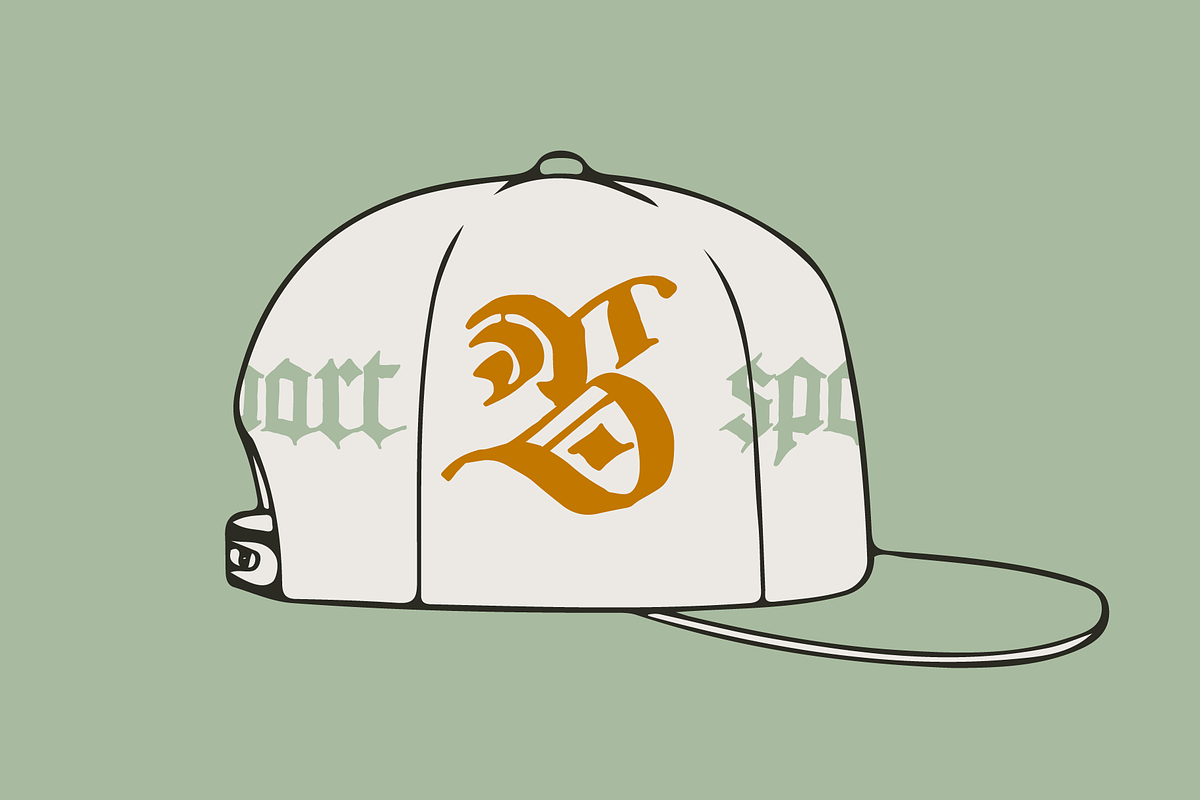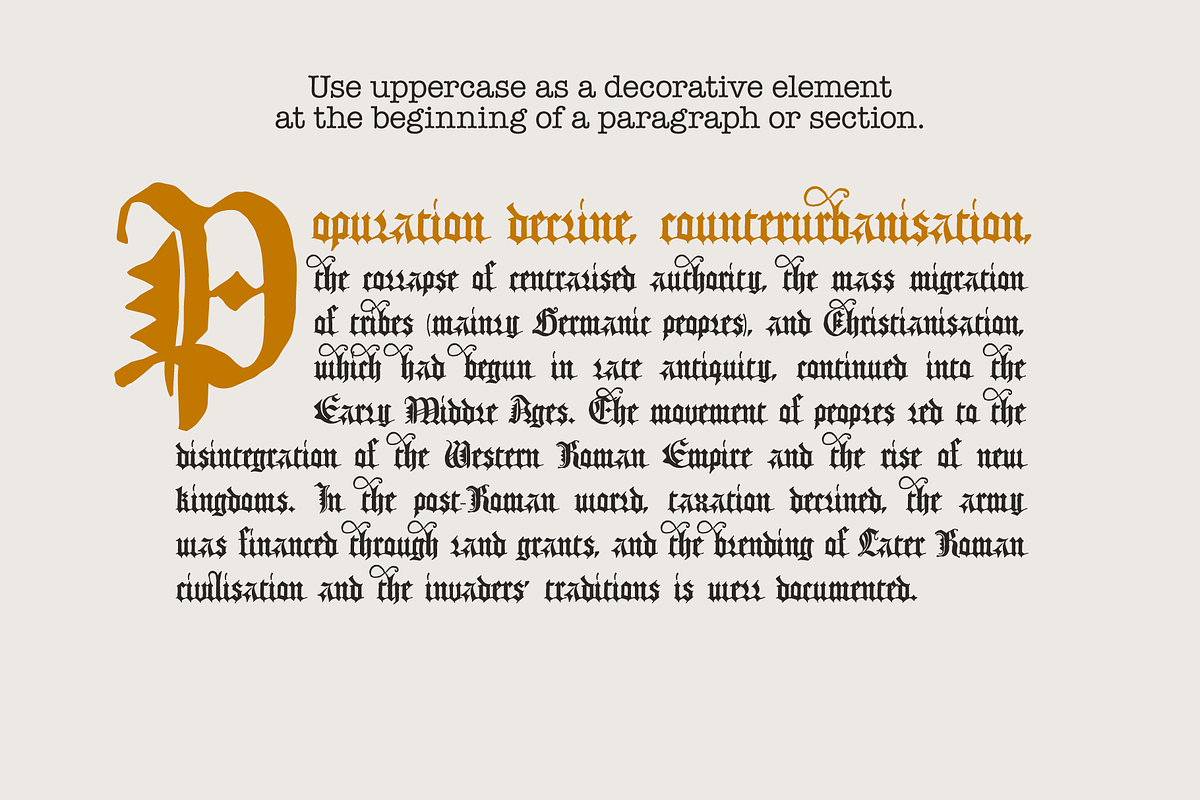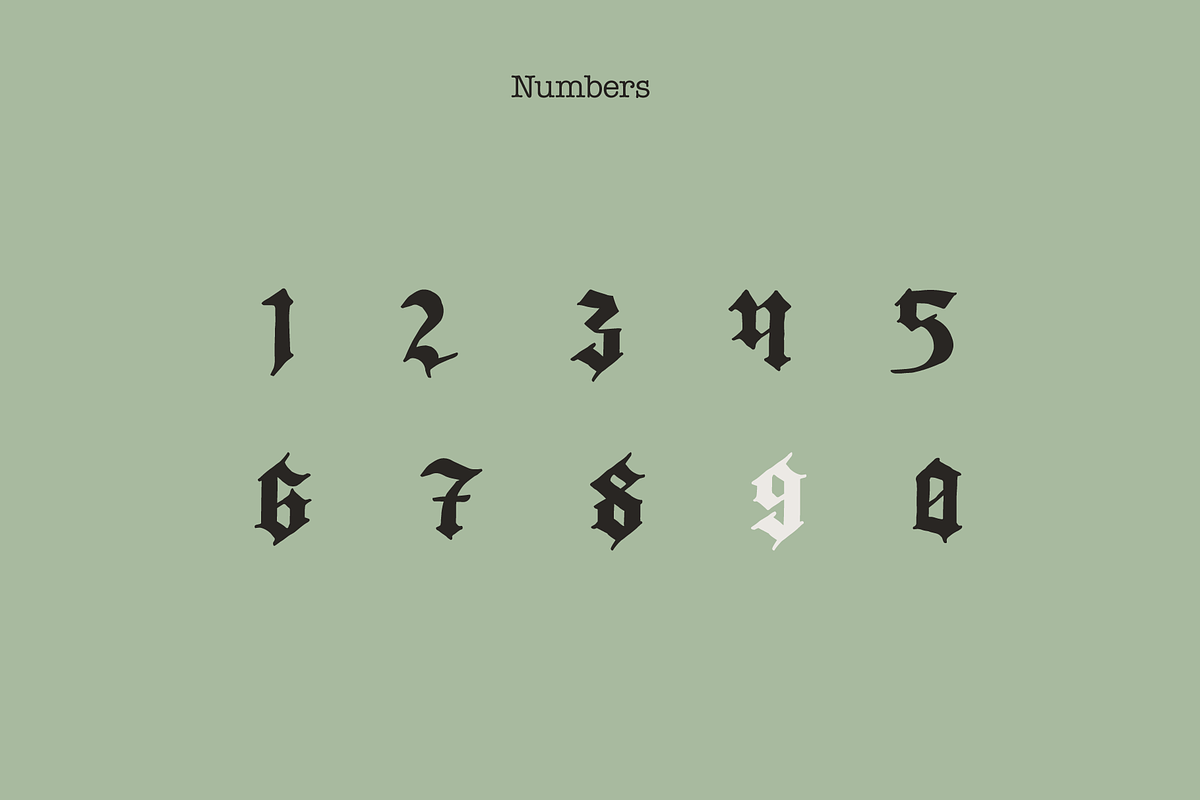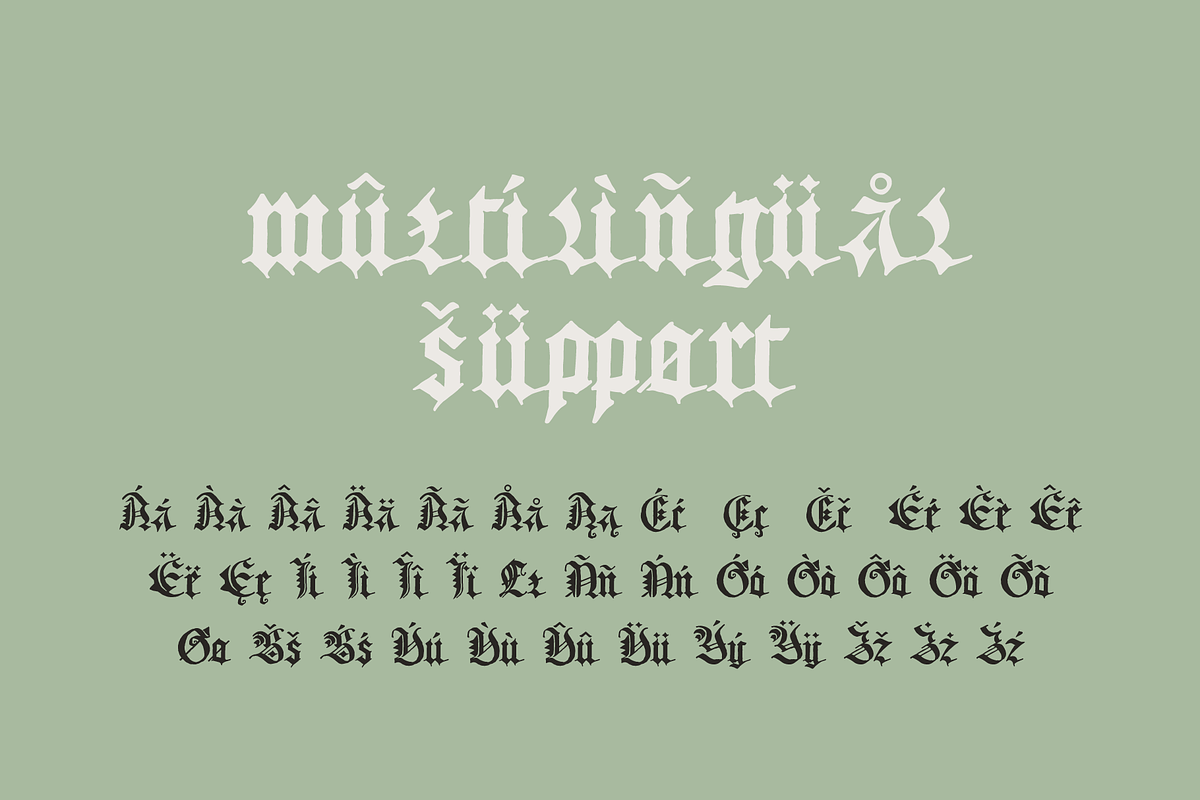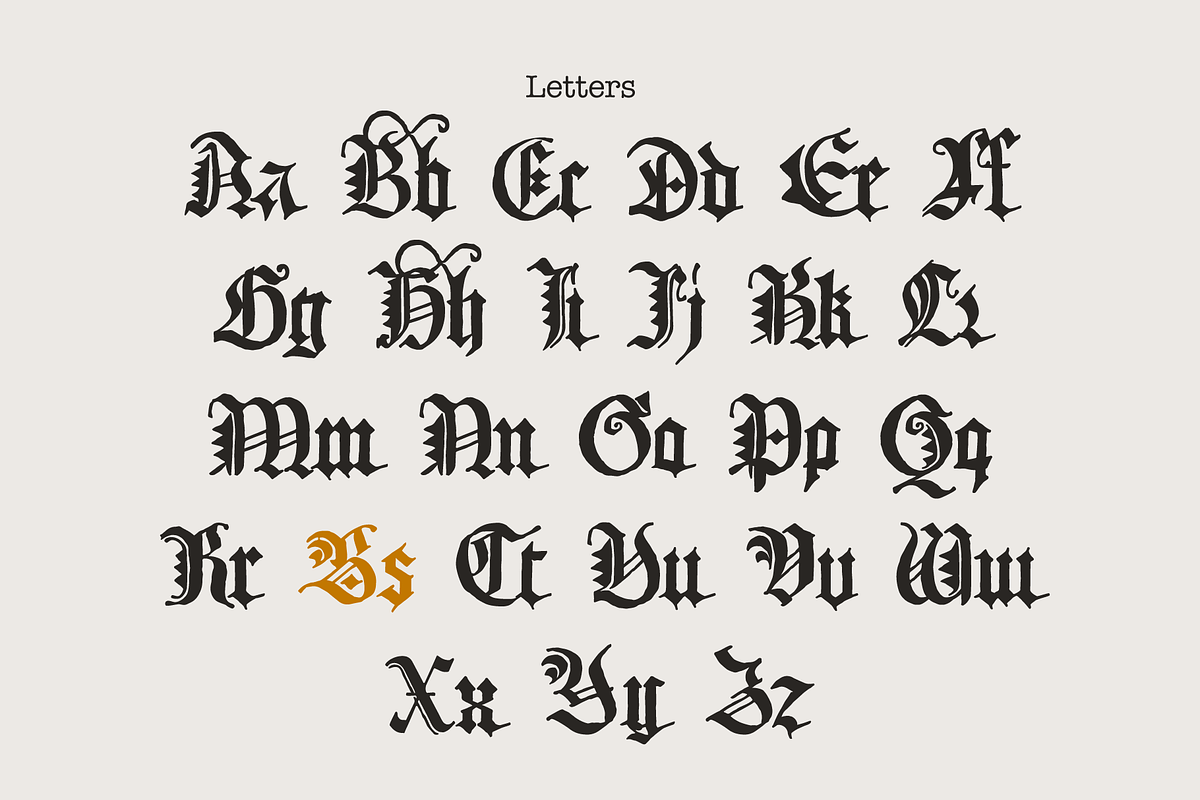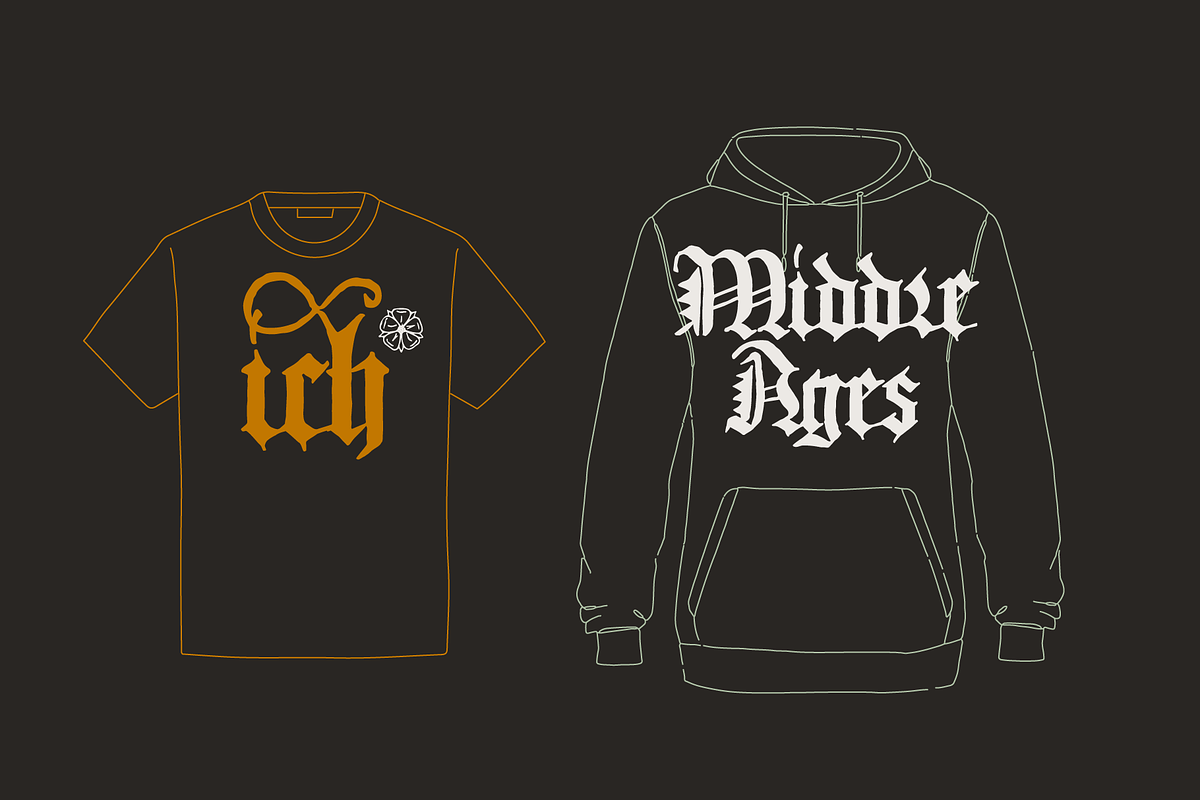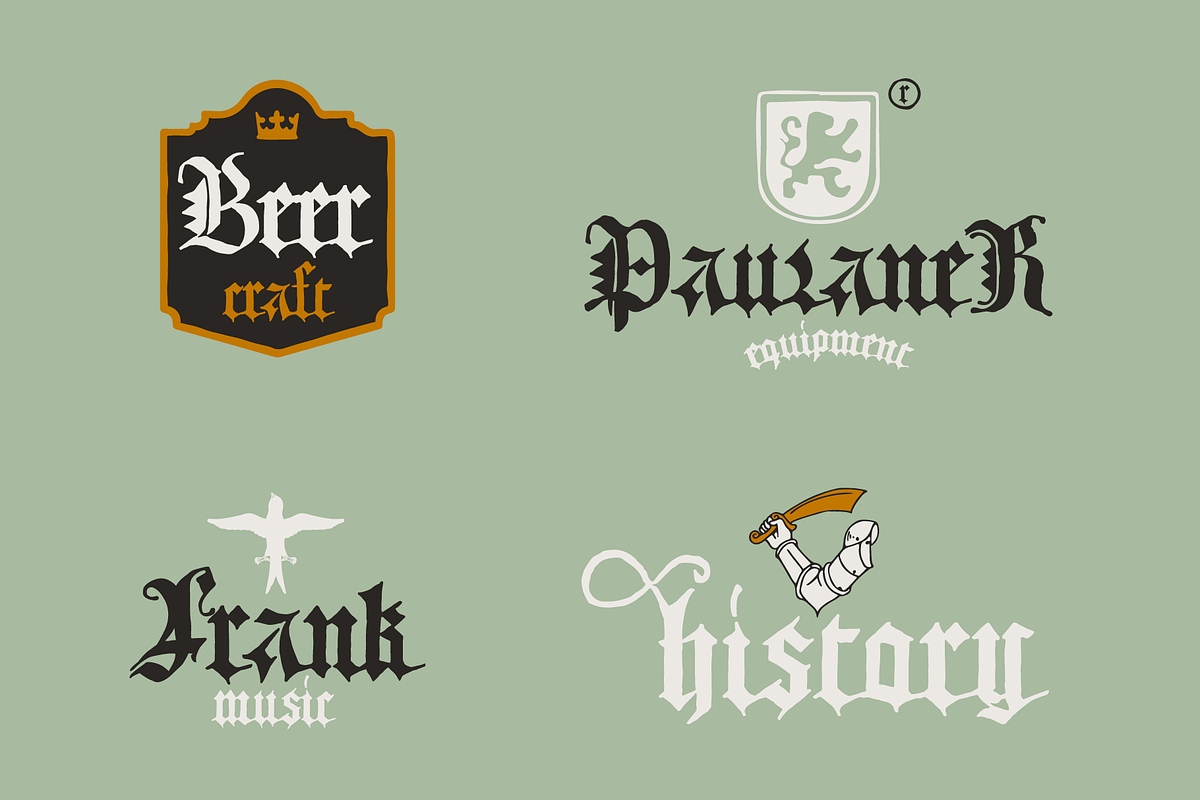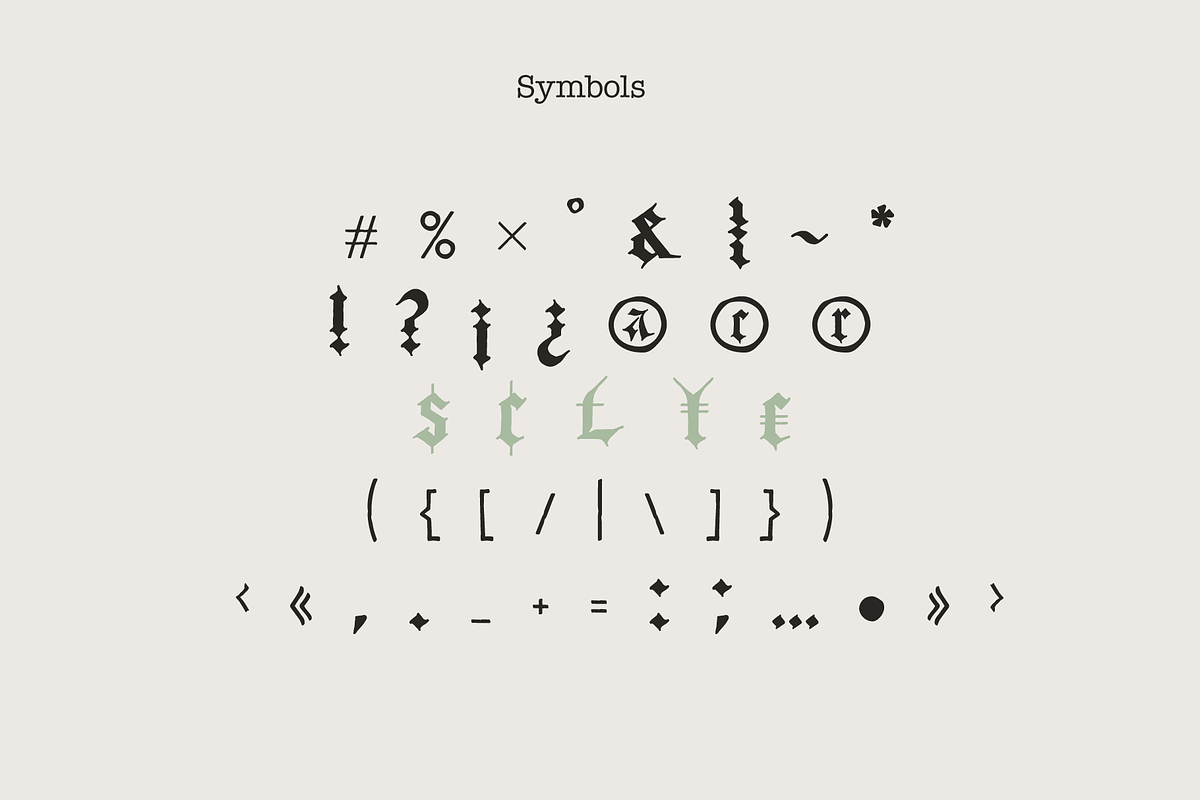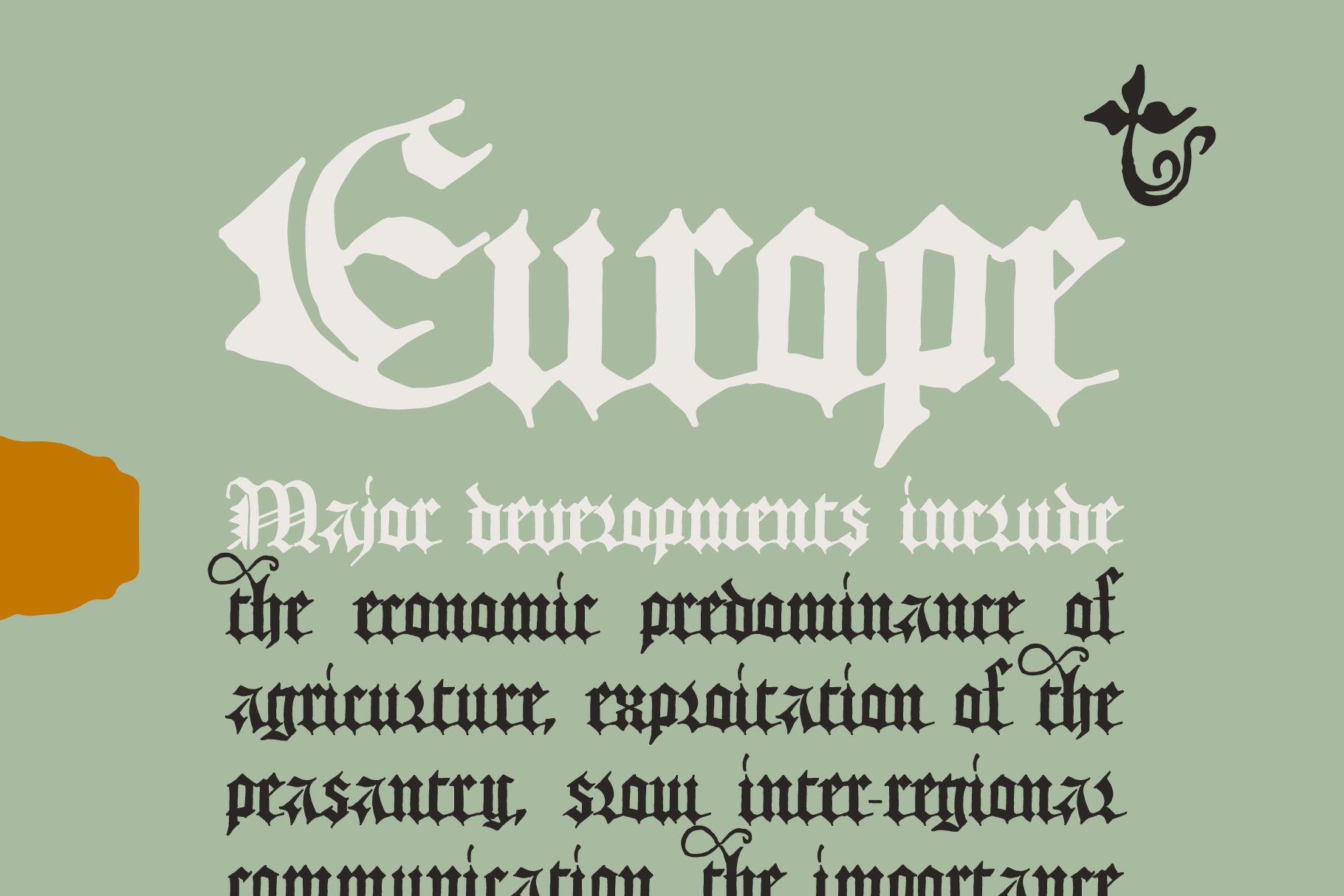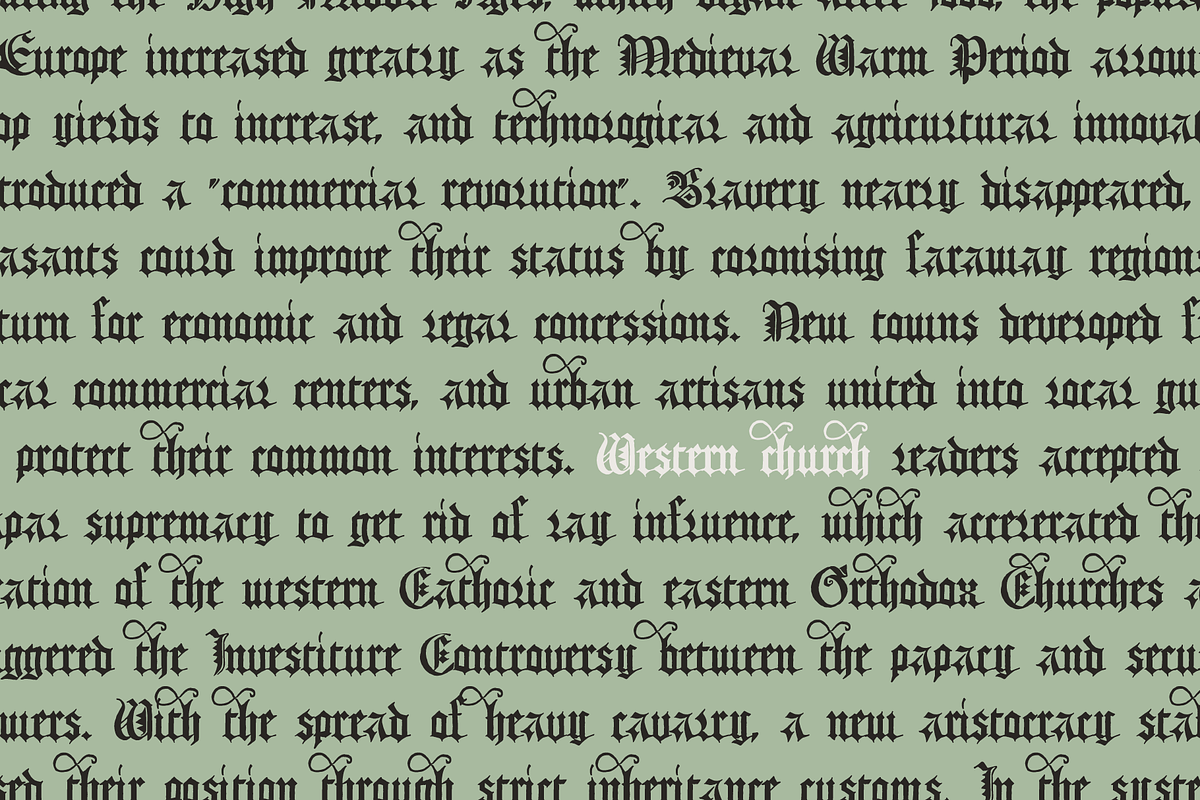
Europe Gothic balckletter font
Hello! I'm happy to introduce to you my new Europe Gothic font. I took inspiration in Martyrology of the Saints, a manuscript published in Strassburg by Johann Prüss in 1484. I’ve found the capital letters in a unique style and added all other symbols.
Do you need to design perfect alcohol labels, retro style logos, music album covers, circus posters, luxury packaging identity, etc.? If you want dark and strong medieval style concepts, please try it.
- Some ligatures